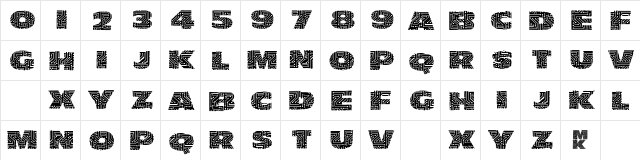
LeiterplattenSans Regular
Design Context for LeiterplattenSans Typeface
LeiterplattenSans is a composed and adaptable typeface that performs quietly and consistently across a wide range of design contexts.